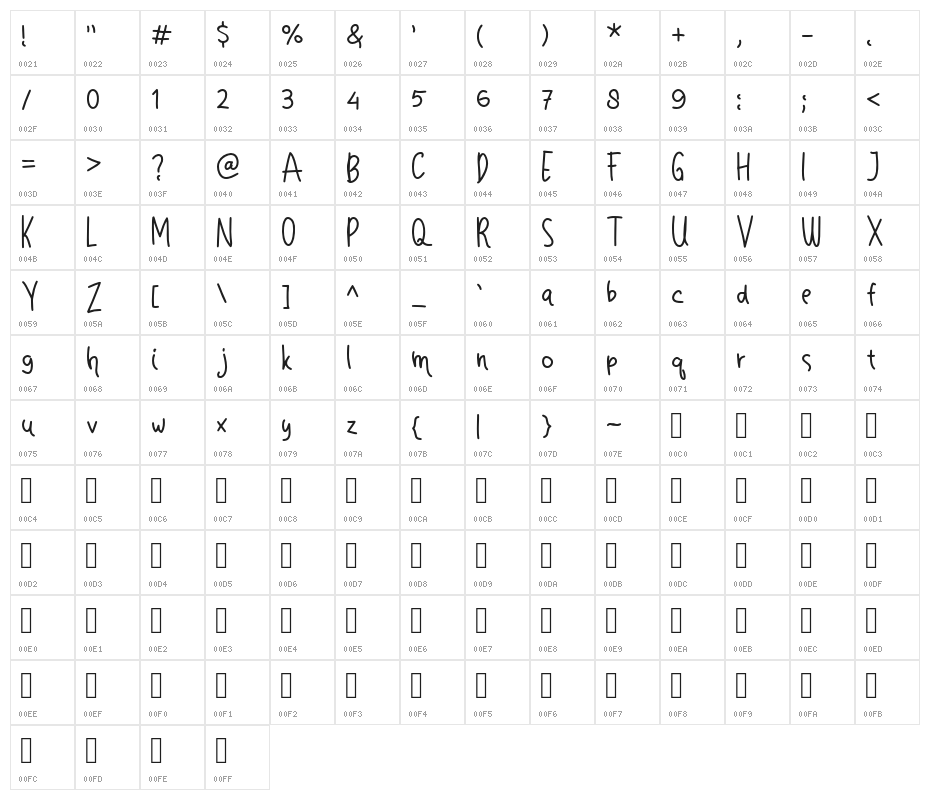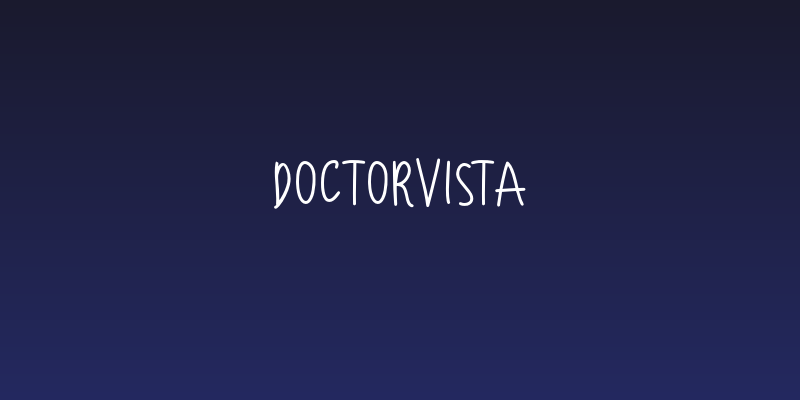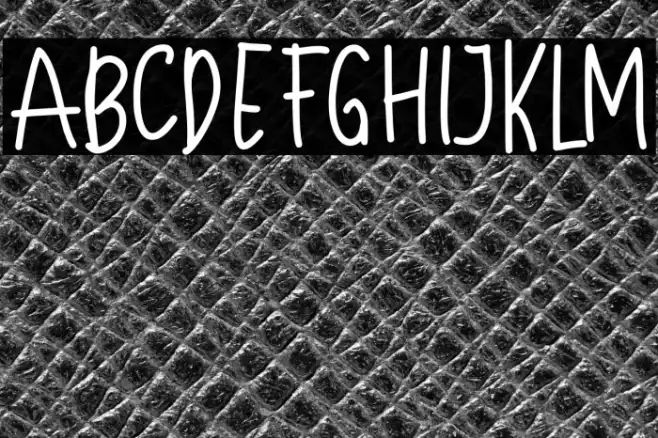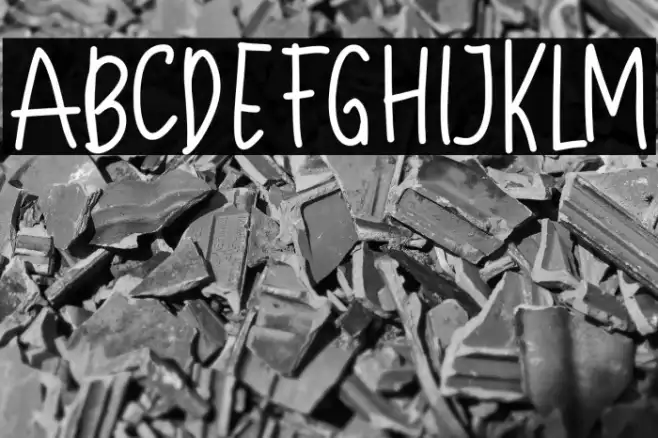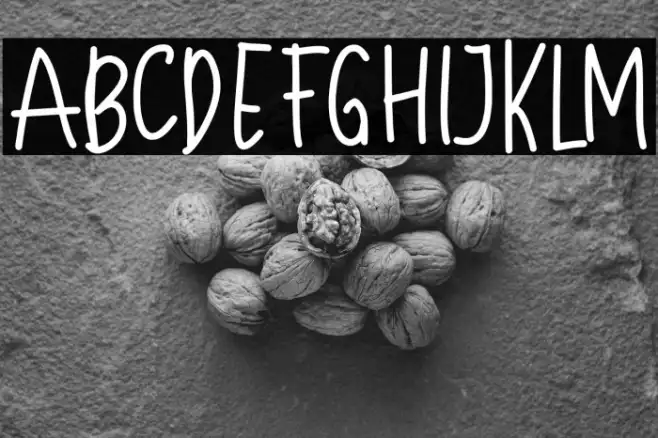
DoctorVista Font
DoctorVista Description
This font features a playful and casual handwritten style, characterized by its irregular and slightly whimsical letterforms. The strokes are uneven, adding a personal and informal touch to the text. The uppercase letters are tall and narrow, while the lowercase letters are more rounded and relaxed, creating a friendly and approachable appearance. The numerals and special characters maintain the same playful aesthetic, making the font versatile for various creative projects.
| Proposed Projects | Ideal for greeting cards, children's books, personal blogs, and creative branding projects. |